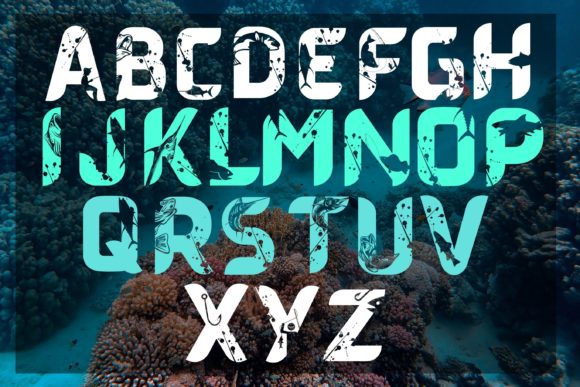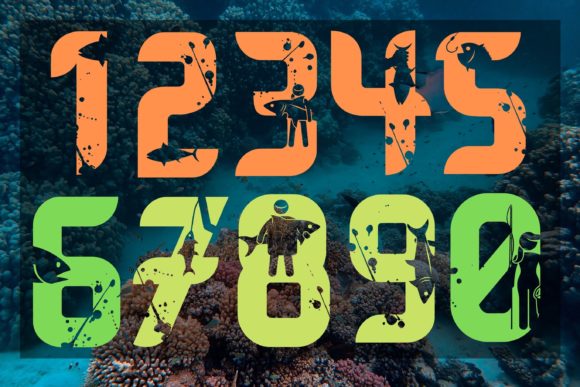
Discover the Versatility of Deep Blue Sea Font: Elevate Your Designs with this Unique Decorative Font
Are you tired of using the same old fonts in your designs? Look no further! Introducing Deep Blue Sea Font, a cool, useful, and unique decorative font that’s perfect for adding a touch of personality to your projects. Whether you’re a designer, crafter, or DIY enthusiast, this font is sure to become a favorite in your toolkit.
What Makes Deep Blue Sea Font So Special?
Deep Blue Sea Font is a one-of-a-kind decorative font that’s designed to make your designs stand out. Its unique and eye-catching style is perfect for creating visually appealing projects that capture attention. The font’s versatility is one of its most significant advantages, making it suitable for a wide range of applications.
Endless Possibilities: Use Deep Blue Sea Font for Various Projects
So, what can you create with Deep Blue Sea Font? The possibilities are endless! Here are some ideas to get you started:
- Blog Posts: Add a touch of personality to your blog posts with Deep Blue Sea Font. Use it for headings, titles, or even entire paragraphs to create a unique and engaging reading experience.
- Logos and Branding: Create a memorable brand identity with Deep Blue Sea Font. Its unique style is perfect for crafting logos, business cards, and other branding materials that make a lasting impression.
- Ads and Marketing Materials: Grab attention with Deep Blue Sea Font in your ads, flyers, and marketing materials. Its eye-catching style is sure to draw in potential customers and make your message stand out.
- Invitations and Greeting Cards: Add a personal touch to your invitations and greeting cards with Deep Blue Sea Font. Create beautiful and unique designs that make your recipients feel special.
- Planners and Organizers: Use Deep Blue Sea Font to create visually appealing planners, journals, and organizers. Its decorative style is perfect for adding a touch of personality to your daily, weekly, or monthly planning.
- Photo Albums and Scrapbooking: Create stunning photo albums and scrapbooking pages with Deep Blue Sea Font. Add captions, titles, and other text elements that make your memories shine.
- Decorations and DIY Projects: Deep Blue Sea Font is not just limited to digital projects. Use it to create beautiful decorations, such as wall art, signs, and other DIY projects that showcase your creativity.
Why Choose Deep Blue Sea Font?
So, why should you choose Deep Blue Sea Font for your designs? Here are just a few reasons:
- Unique Style: Deep Blue Sea Font has a one-of-a-kind style that’s sure to make your designs stand out.
- Versatility: Use Deep Blue Sea Font for a wide range of projects, from digital designs to DIY crafts.
- High-Quality: Deep Blue Sea Font is a high-quality font that’s designed to produce crisp and clear text, even at small sizes.
| Font Name | Deep Blue Sea Font |
| Author | Cnxsvg |
Deep Blue Sea Font is a unique and versatile decorative font that’s perfect for designers, crafters, and DIY enthusiasts. Its eye-catching style and endless possibilities make it a valuable addition to any design toolkit. So why wait? Download Deep Blue Sea Font today and start elevating your designs to the next level!